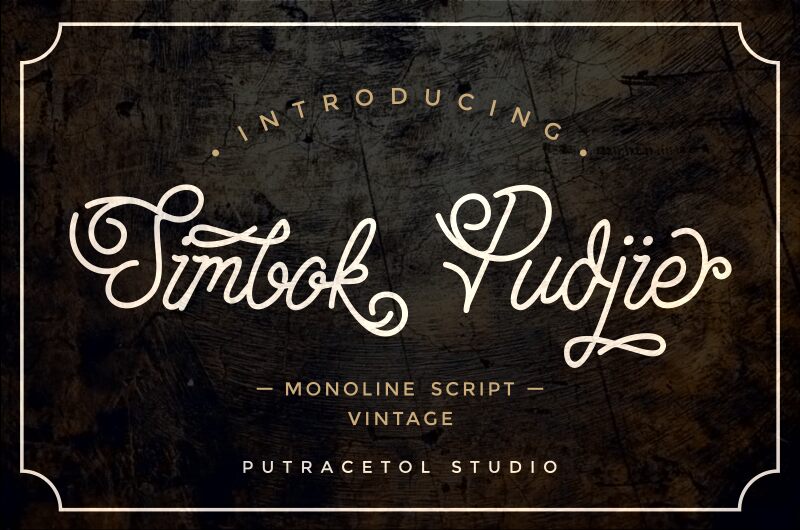
Simbok Pudjie stands out as a testament to the artistic craftsmanship of Putra Novembria Candra Kusuma, offering an exquisite handwritten aesthetic that is both delicate and expressive. This font embodies a light weight and condensed width, providing a sense of elegance and sophistication to any design project.
The Simbok Pudjie font's flowing curves and fine lines suggest a personal touch, making it ideal for invitations, branding, and editorial designs where a touch of intimacy is desired. Its condensed nature allows for impactful use in tighter spaces without sacrificing readability.
The unique style of Simbok Pudjie combines contemporary flair with classic handwriting traits, ensuring that it will breathe life into creative endeavors ranging from digital graphics to print media. Embrace the charm of this distinctive typeface to add a signature look to your projects that demands attention while maintaining grace and finesse.